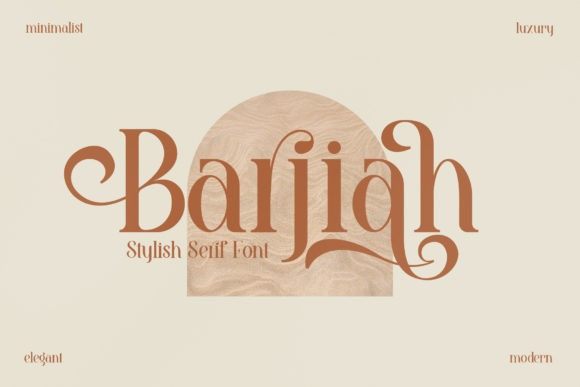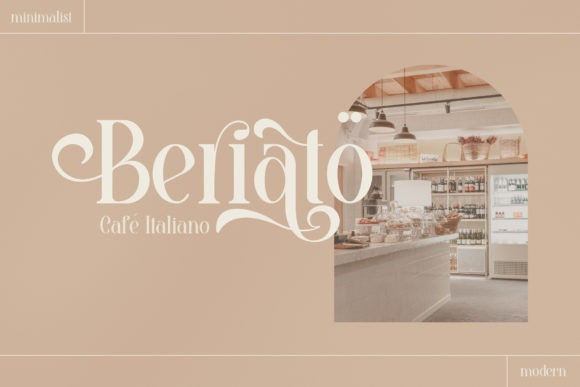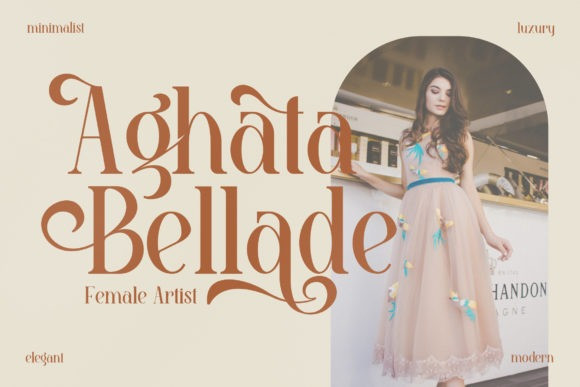
Barjiah Font
Barjiah is a stylish serif font that has modern and unique elements.
It is perfect for creating luxurious logos, book or movie title designs, fashion brands, magazine covers, clothes, lettering, quotes, and so much more. This font is PUA encoded which means you can access all of the glyphs and swashes with ease!